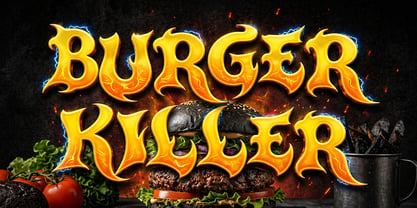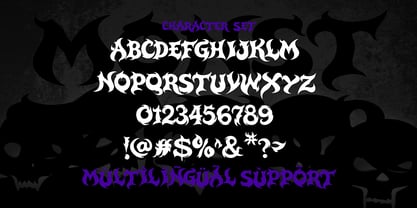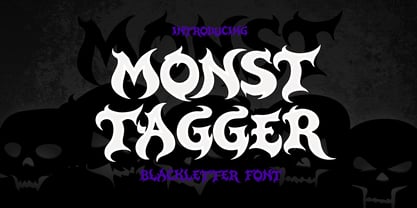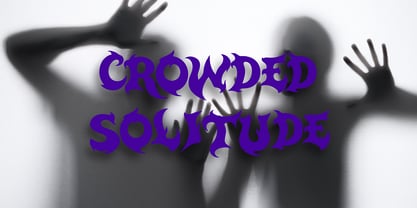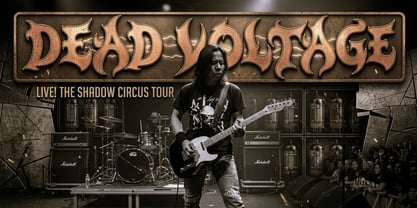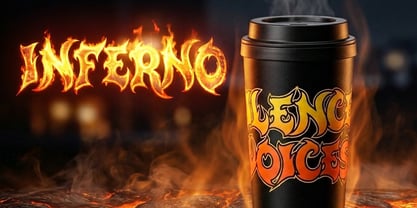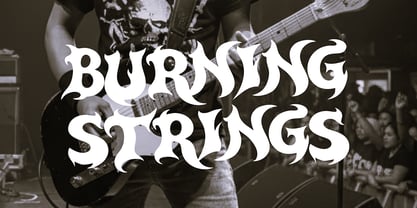
Monst Tagger
Monsttager is a bold blackletter display typeface that draws inspiration from traditional gothic calligraphy while embracing modern design aesthetics. This font is crafted to deliver a strong and dramatic visual presence, making it an excellent choice for projects that require intensity, character, and a sense of historical depth.
The defining feature of Monsttager lies in its sharp and structured letterforms. Each character is designed with heavy strokes and angular shapes, reflecting the classic characteristics of blackletter typography. At the same time, the font maintains a clean and modern execution, making it suitable for contemporary design applications.
Monsttager includes uppercase characters that are bold and commanding. These letterforms are designed to stand out, making them ideal for headlines, logos, and focal text. The font also includes numbers and punctuation, ensuring full functionality for various design needs.
With multilingual support, Monsttager can be used across different languages, making it suitable for global projects. This versatility allows designers to maintain a consistent visual identity across diverse markets.
This font excels in projects that require strong and expressive typography. It is ideal for branding, posters, album covers, merchandise, editorial design, and digital content. Its gothic style makes it particularly effective for themes related to music, fashion, vintage aesthetics, and dark visual concepts.
From a design perspective, Monsttager works best as a focal point. Its bold and intricate shapes naturally draw attention, making it perfect for headlines and key messaging. Designers can pair it with simple fonts to create contrast and balance.
Technically, Monsttager is optimized for both print and digital use. Its vector-based structure ensures high-quality output across different formats and sizes.
Monsttager is more than just a typeface—it is a visual expression of strength and tradition. It allows designers to create impactful and memorable designs that stand out in any medium.